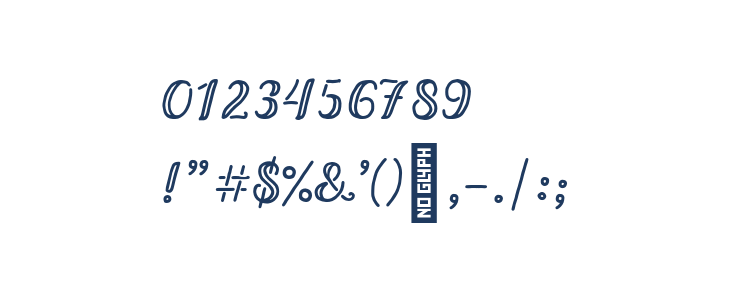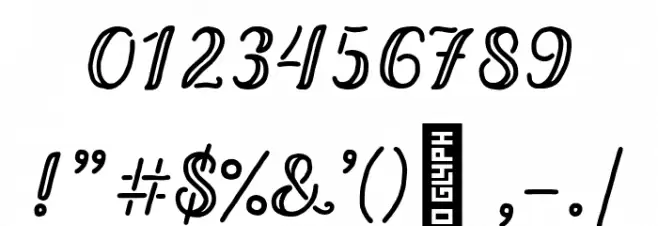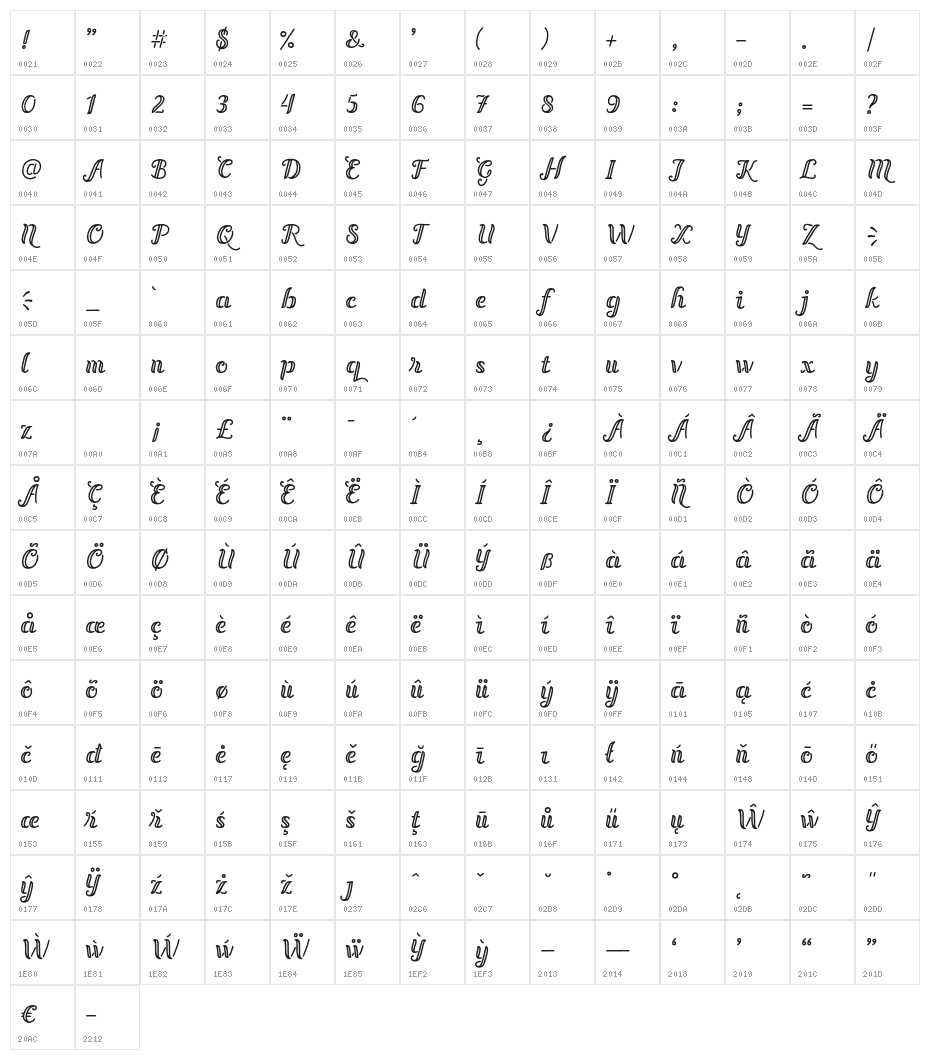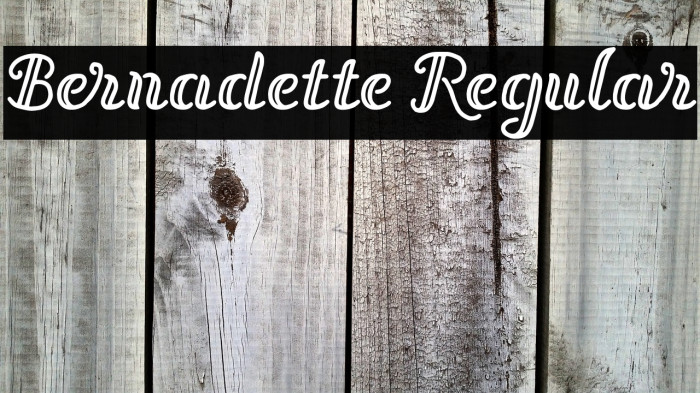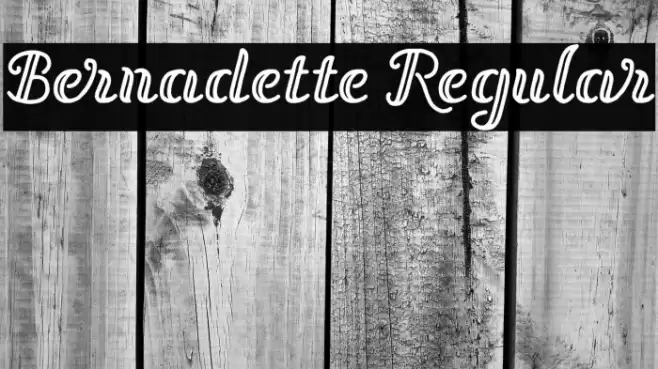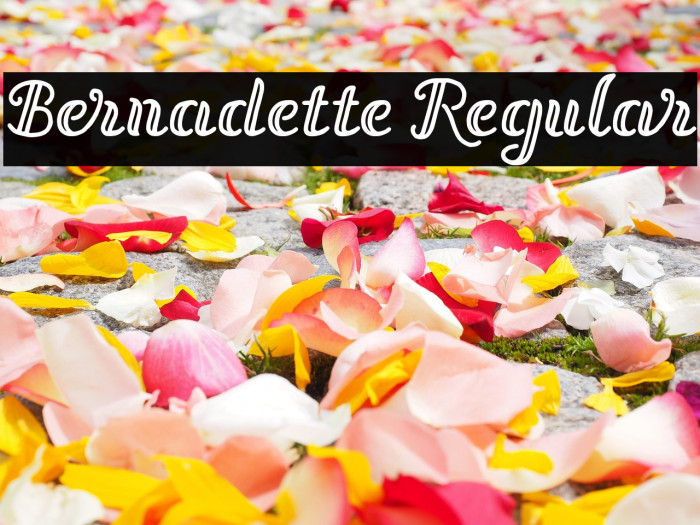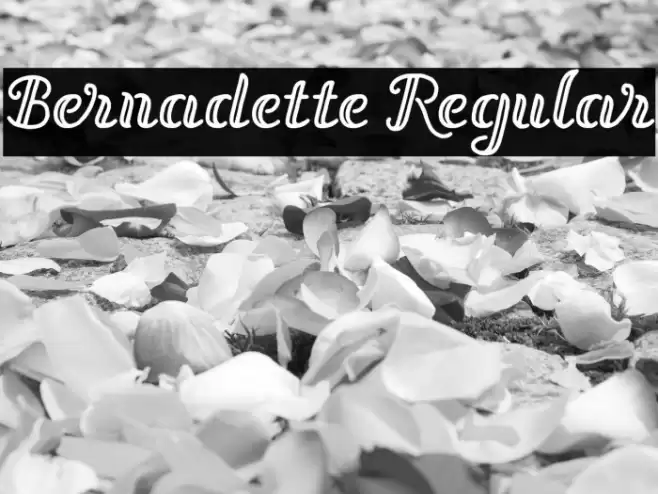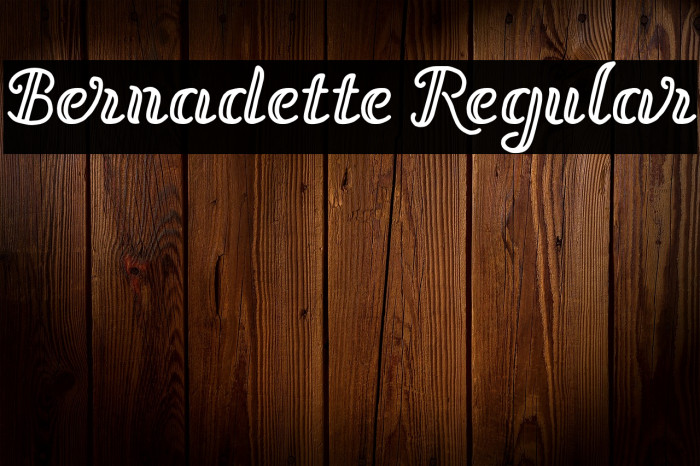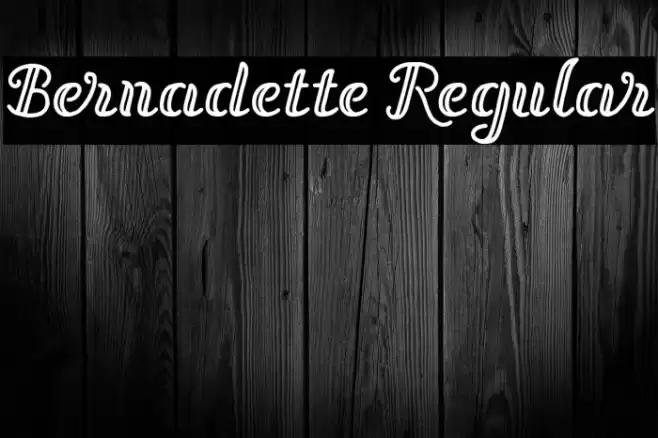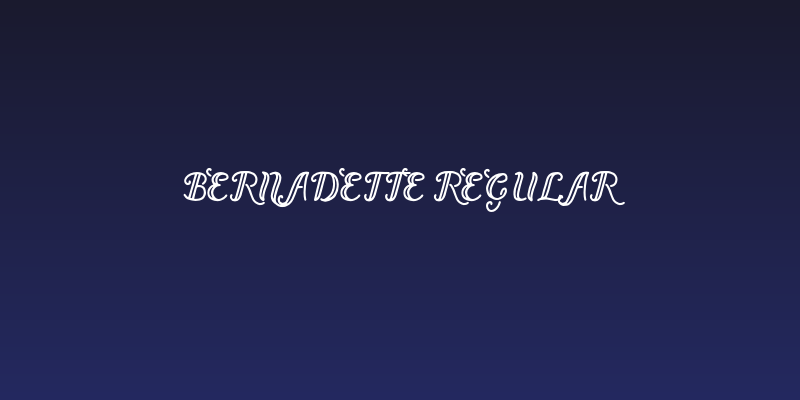
Bernadette Regular Font
This font features a decorative and elegant script style with a flowing, cursive design. The characters have a distinct flair, with swashes and loops that add a sense of movement and sophistication. The uppercase letters are ornate, with intricate details that enhance their visual appeal. The lowercase letters maintain a consistent style, complementing the uppercase with their graceful curves. The numerals are designed to match the overall aesthetic, providing a cohesive look. Special characters are included, offering versatility for various design needs. This font is ideal for projects that require a touch of elegance and creativity.
Use CaseLogos, Invitations, Decorative text
Proposed ProjectsIdeal for wedding invitations, elegant branding, greeting cards, and decorative posters.